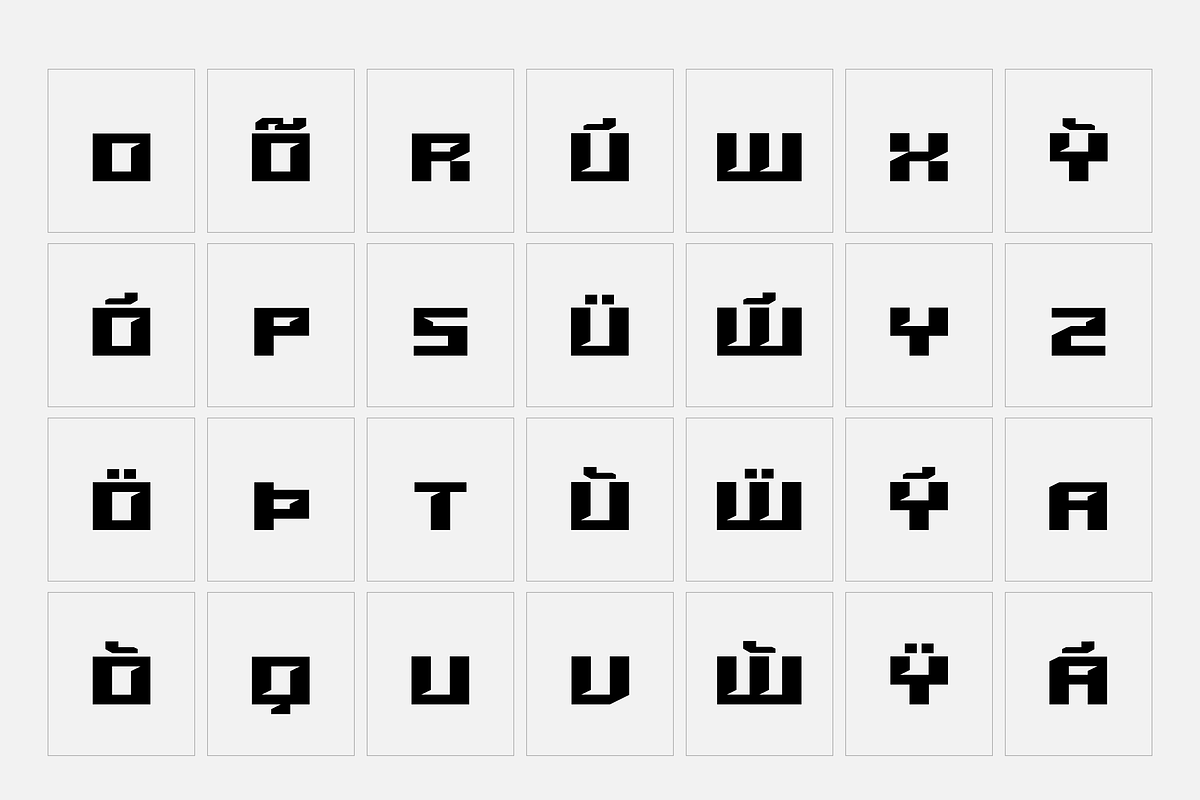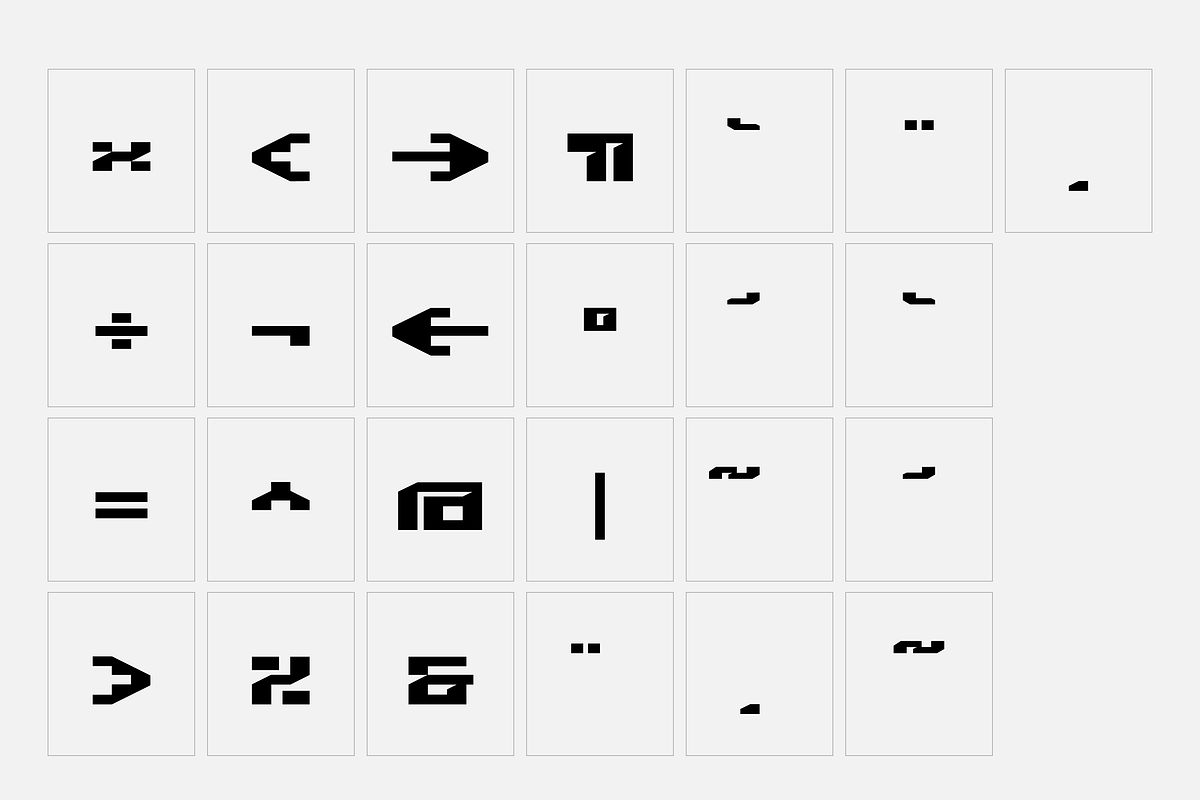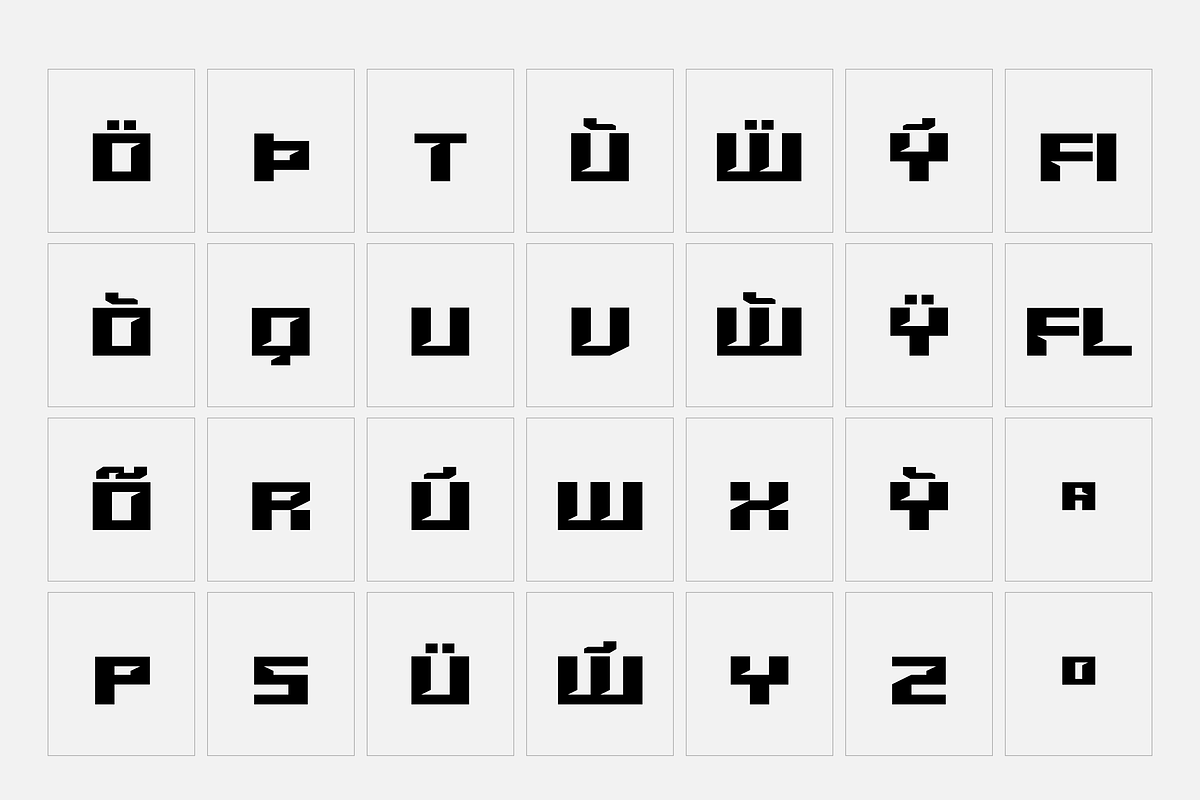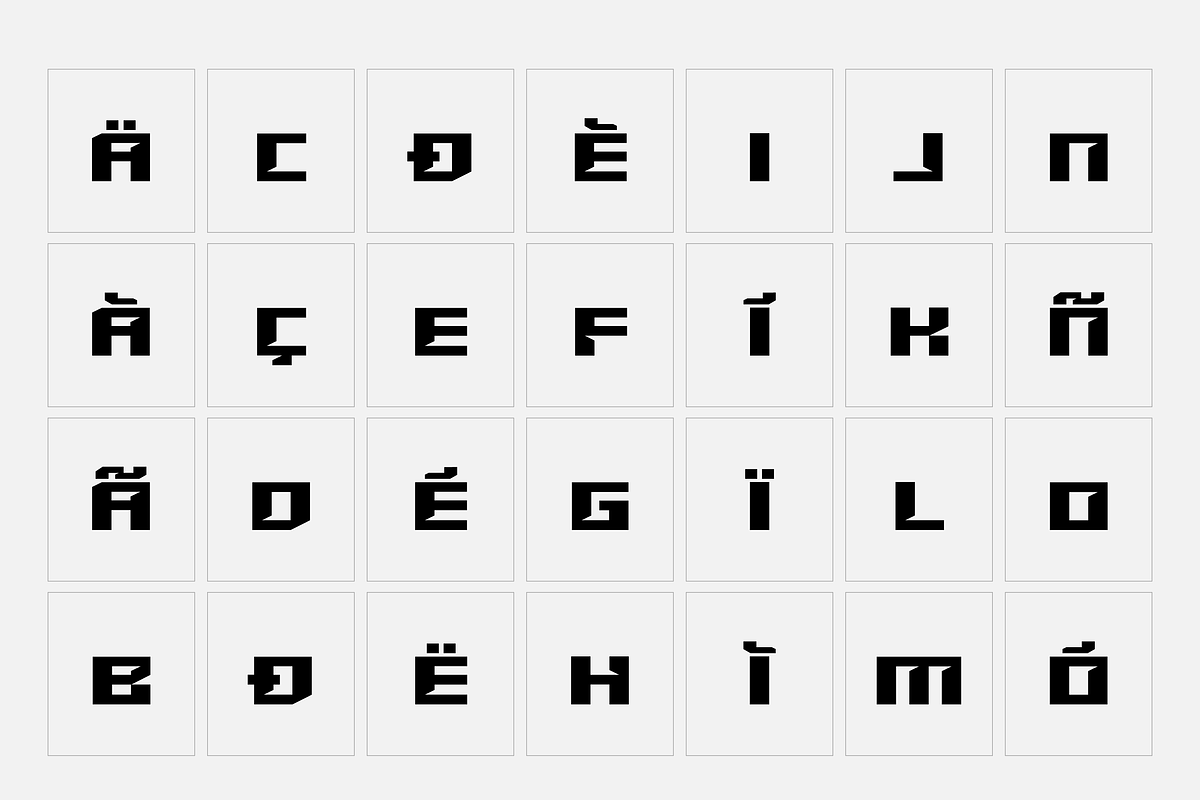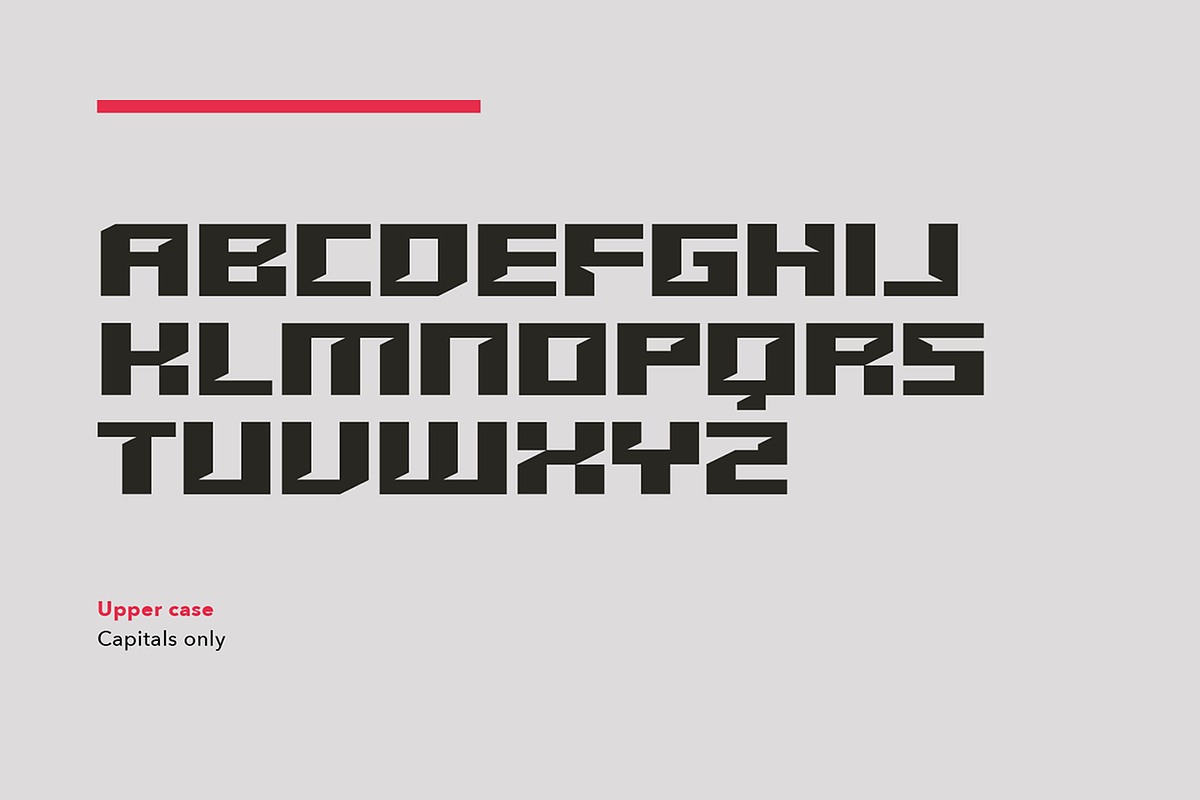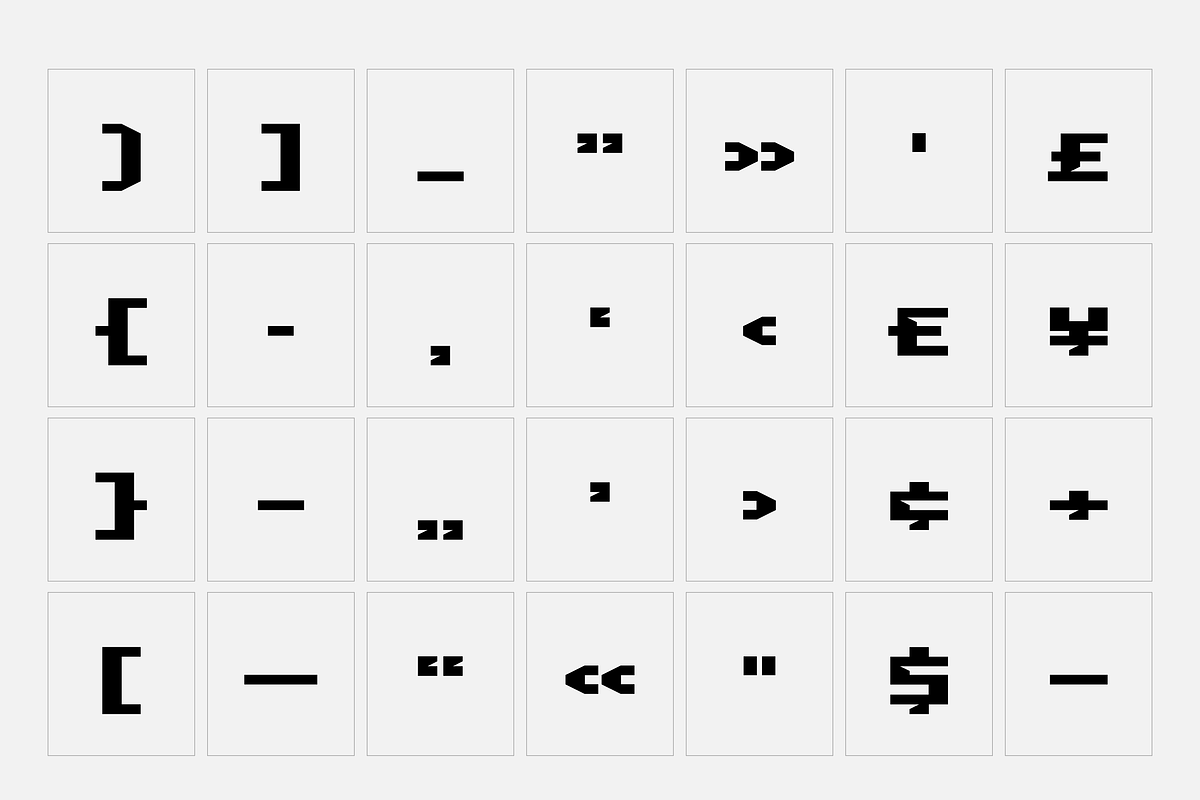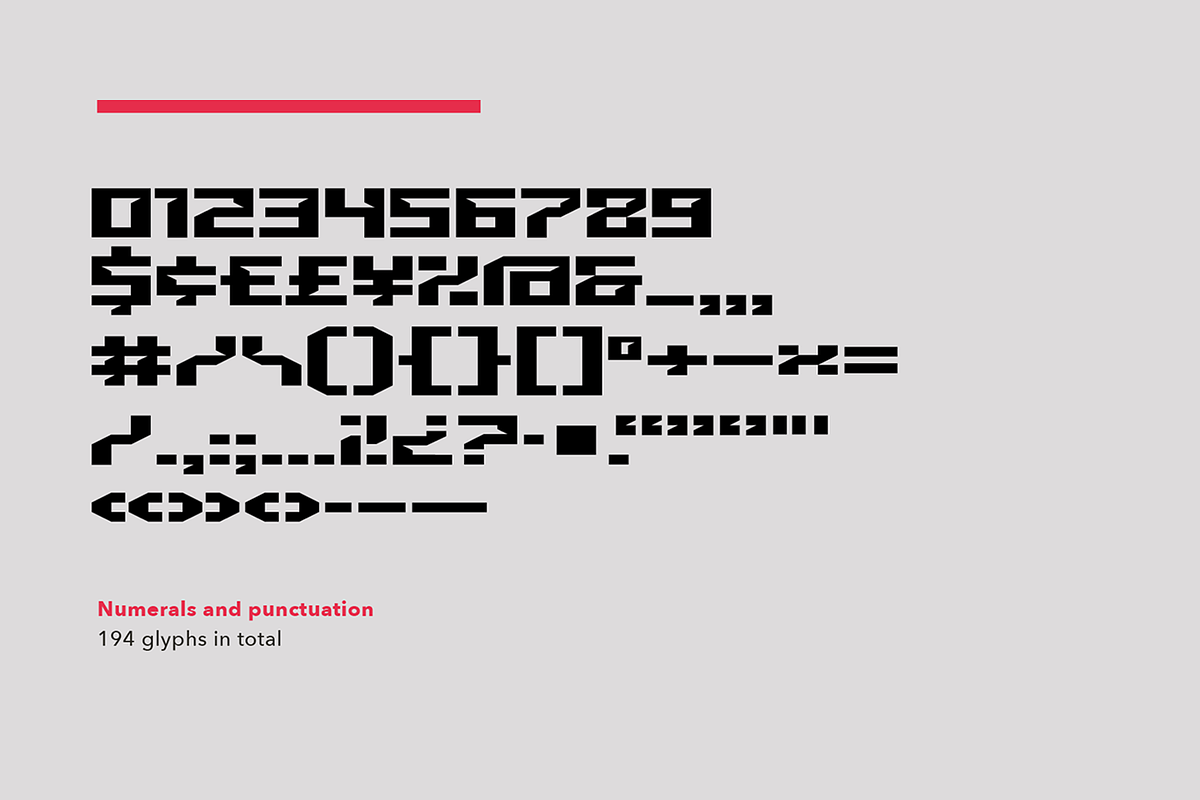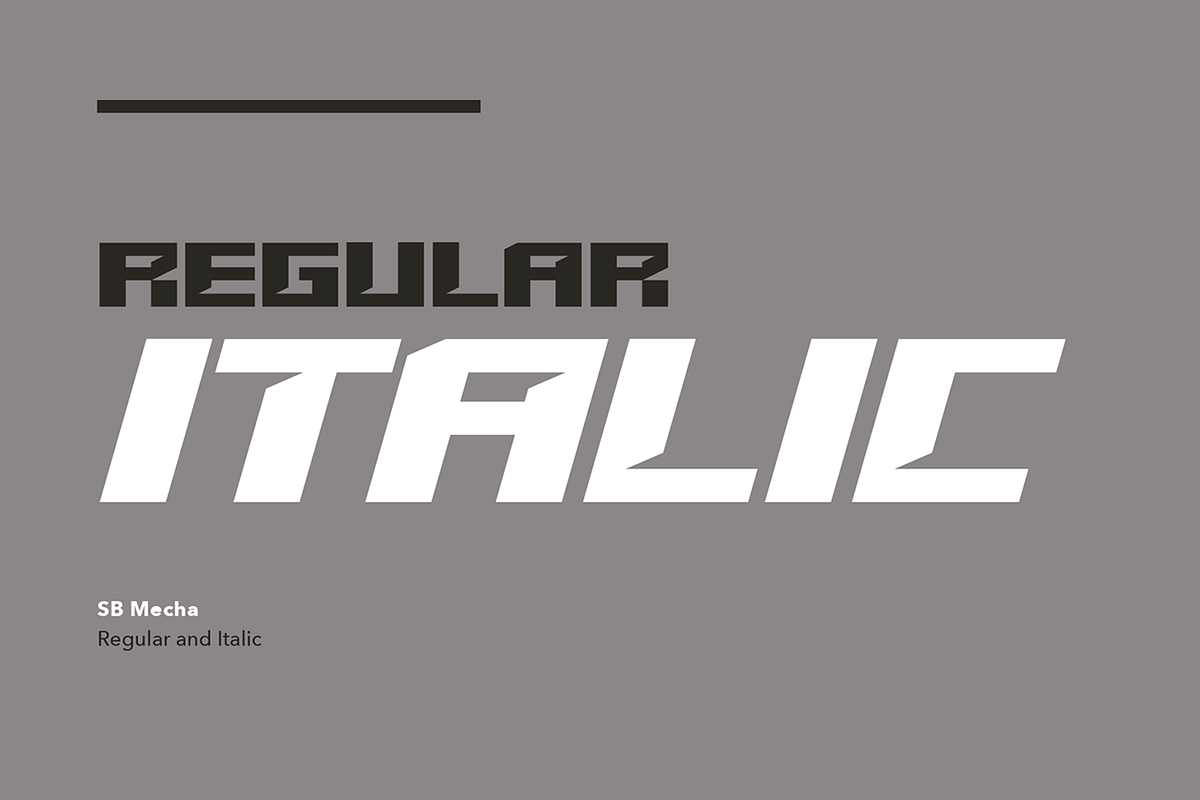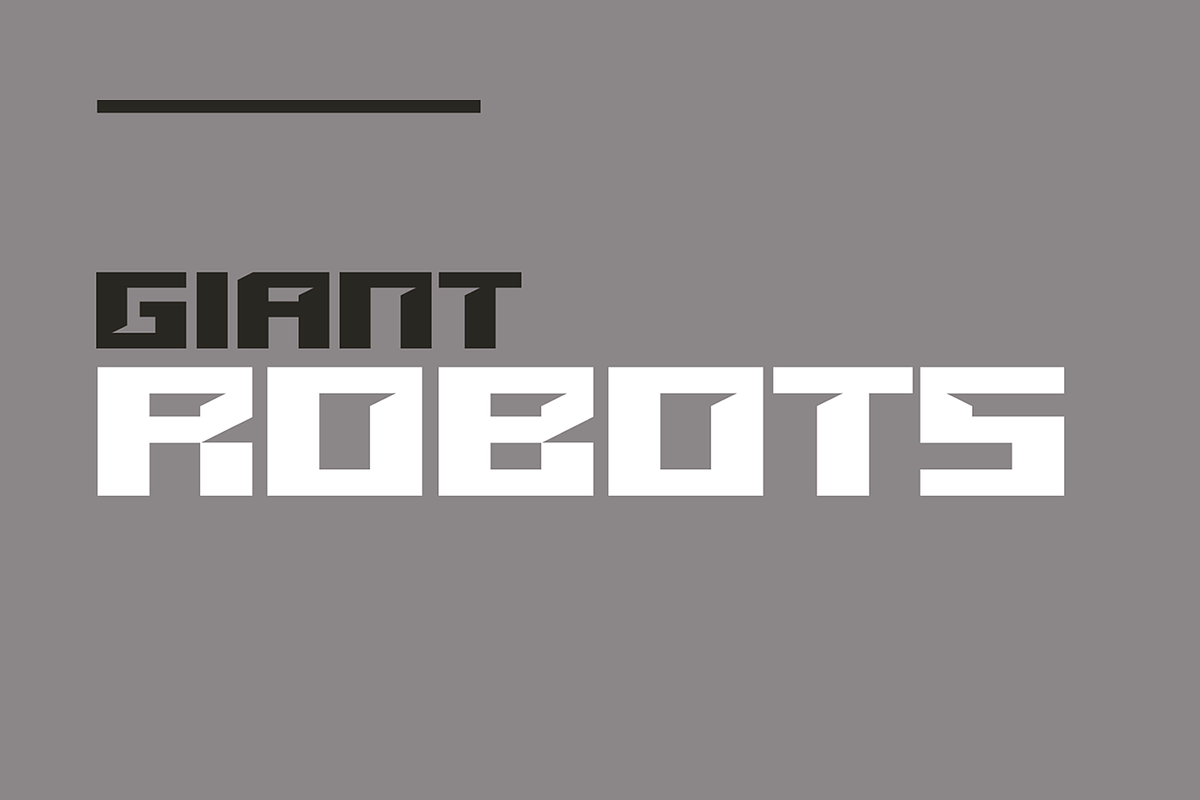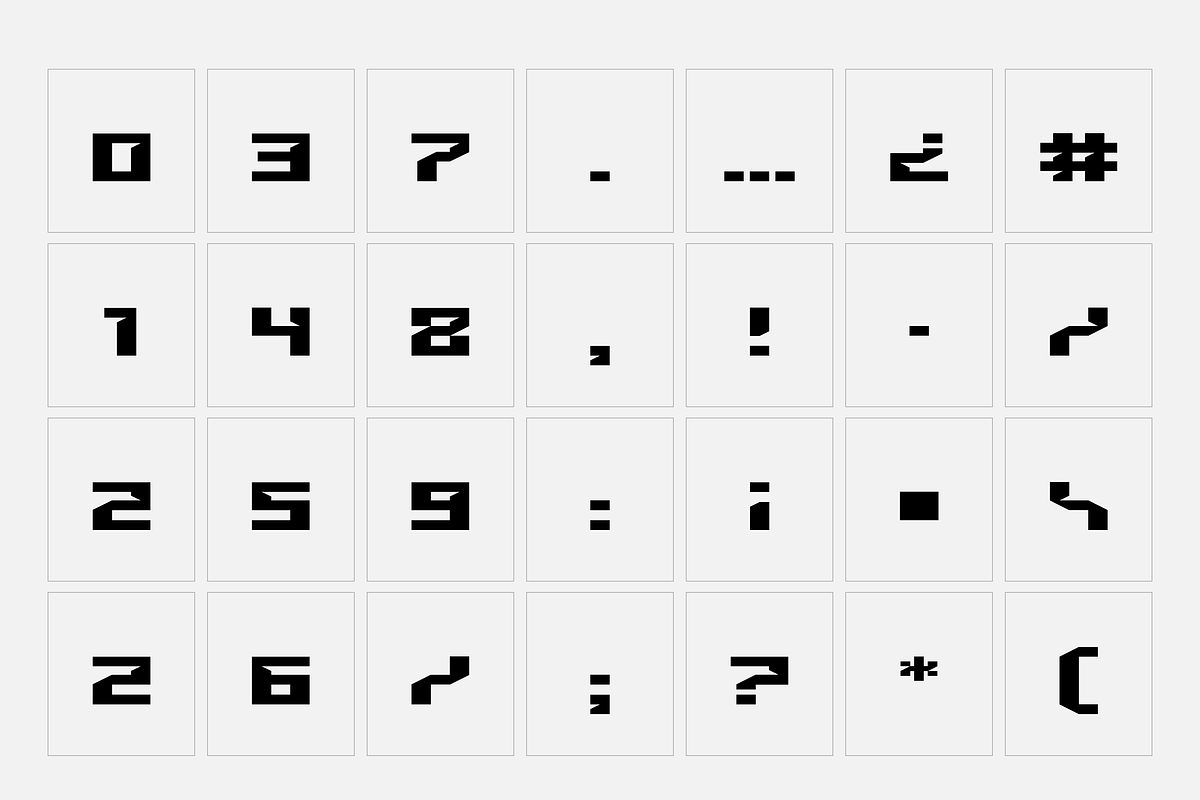
Mecha - block font
- Stylistic alternates for many characters.
SB Mecha is a geometric rectangular typeface with angular, sliced corners. It’s well suited to projects related to sports, music and technology.